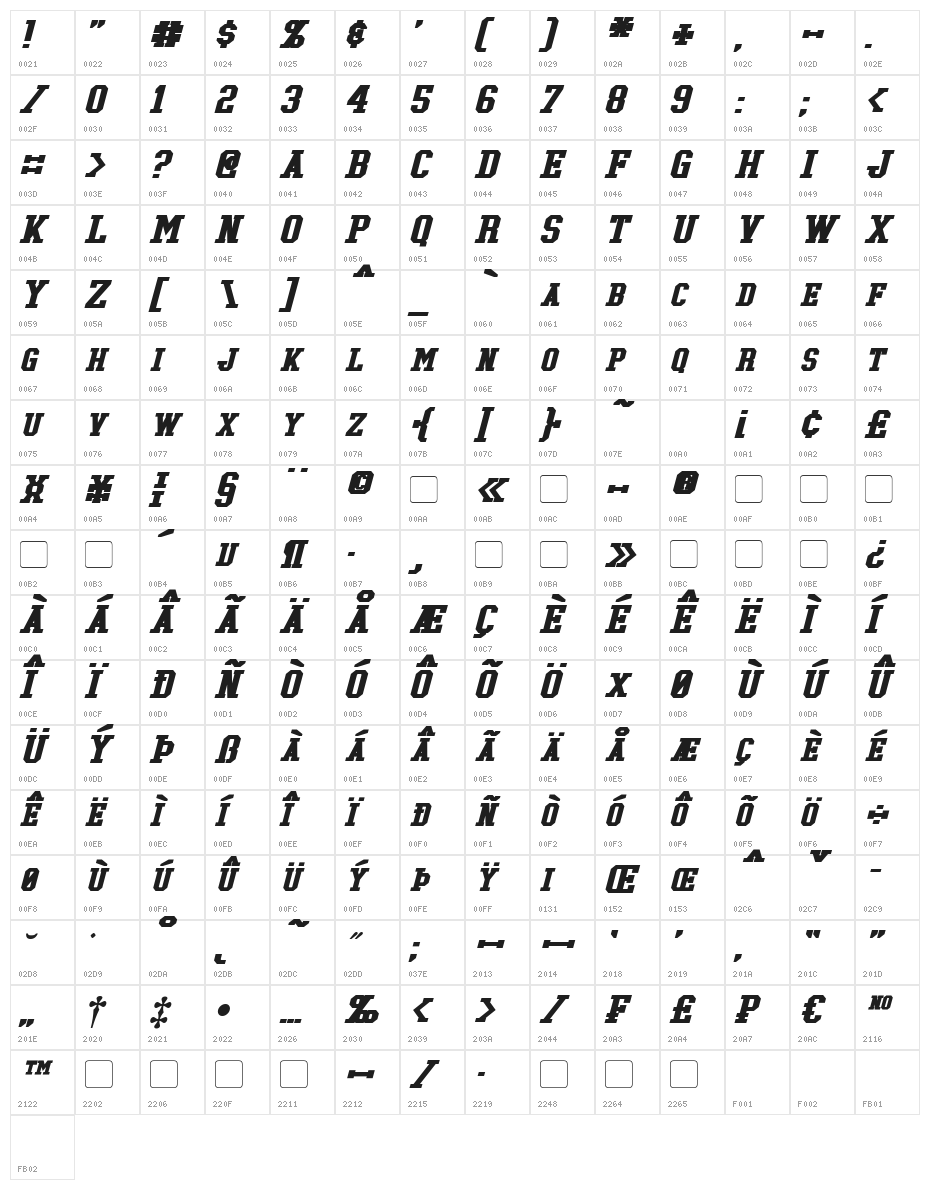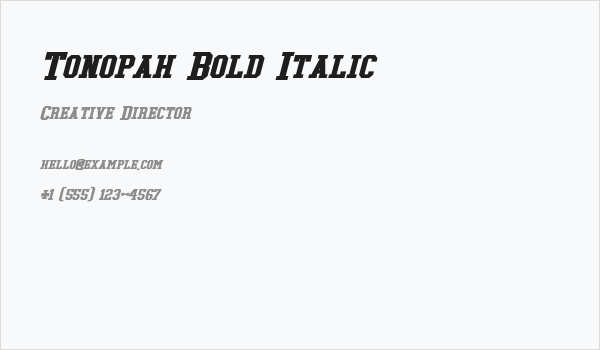
Tonopah Bold Italic Font
Tonopah Bold Italic Description
This bold and italic typeface features strong, angular lines and a dynamic slant, giving it a sense of motion and energy. The uppercase and lowercase letters are designed with a consistent weight, providing a robust and impactful appearance. The numbers and special characters maintain the same boldness, ensuring uniformity across all glyphs. The font's style is reminiscent of athletic or racing themes, making it suitable for projects that require a sense of speed and strength. Its bold nature ensures it stands out, making it ideal for headlines or titles.
| Proposed Projects | Ideal for sports branding, racing event posters, dynamic logos, and bold headlines. |